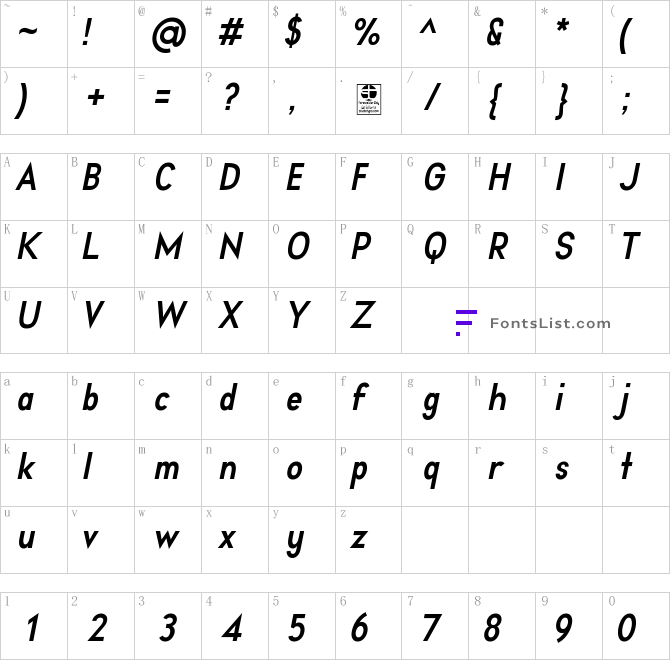
- Font Name:Aprikas Bold Italic Demo
Aprikas-Bold-Italic-Demo.otf is a very beautiful artistic font, Aprikas-Bold-Italic-Demo.otf is widely used in the design and printing of various books and pictures,Aprikas-Bold-Italic-Demo.otf has a strong visual impact,Aprikas-Bold-Italic-Demo.otf is a commonly used font in newspapers, magazines and books, and is used in posters, e-commerce Poster design, store design, logo design, font design and other fields.Aprikas-Bold-Italic-Demo.